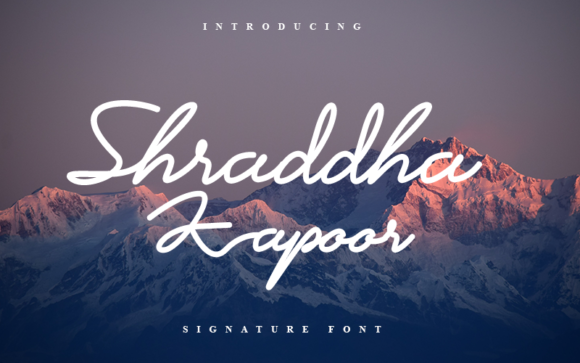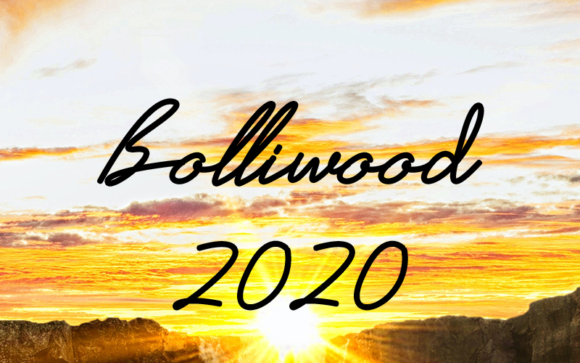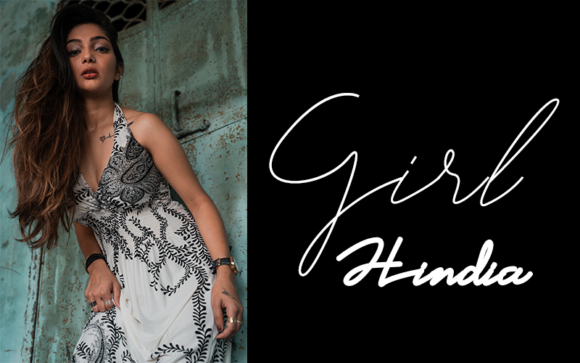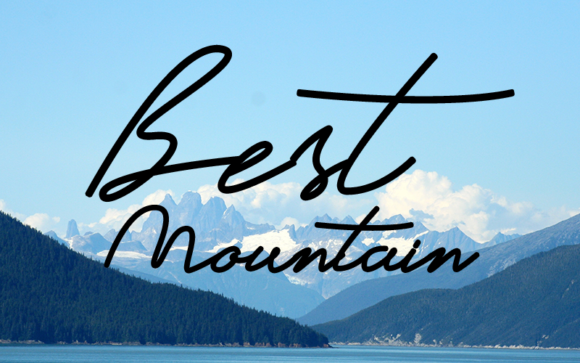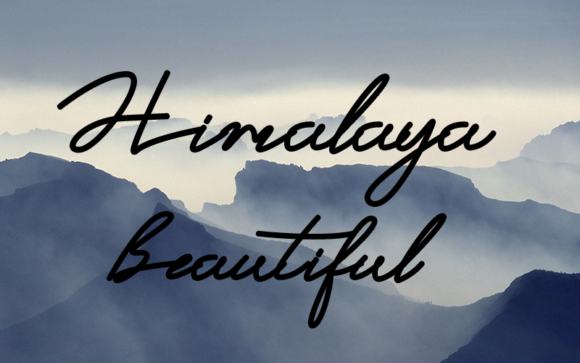
Shraddha Kapoor Font
About Shraddha Kapoor Font
Shraddha Kapoor simplifies elegance into one truly outstanding handwritten font. This font is the perfect fit for all of your logos, branding, social media, and crafty DIY projects.